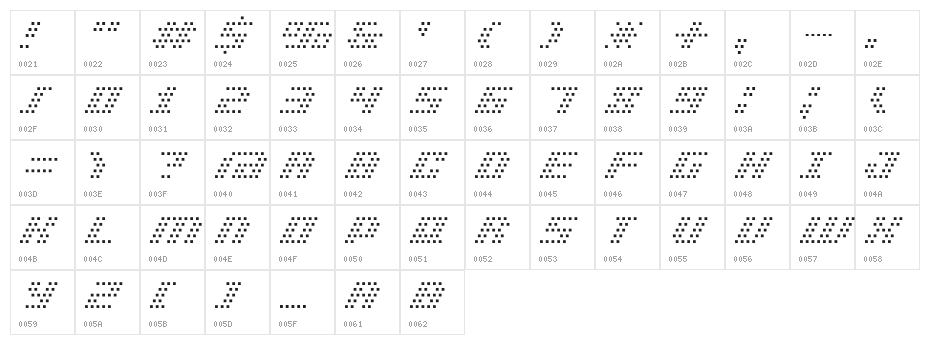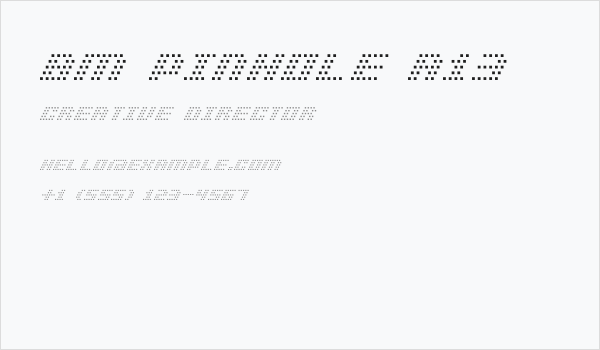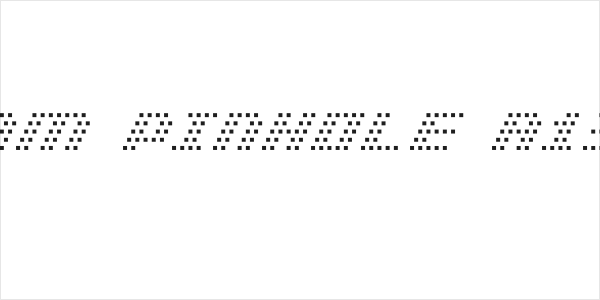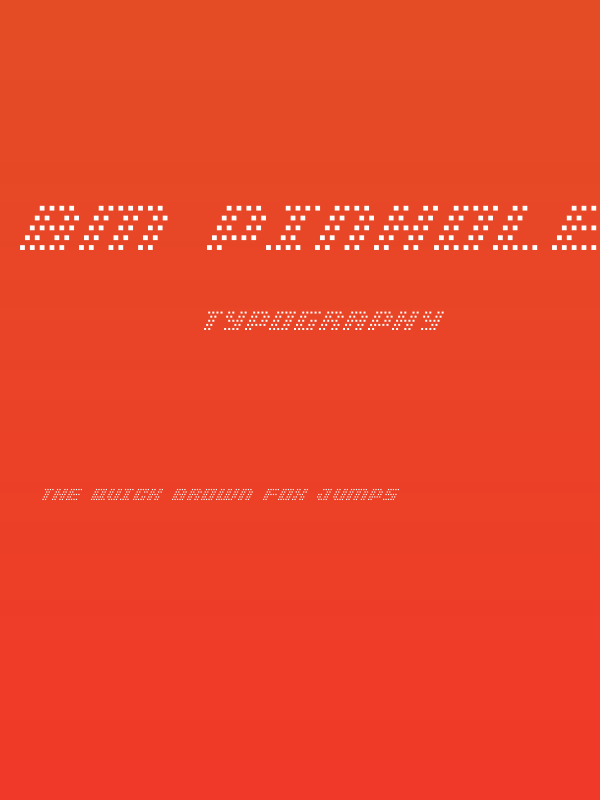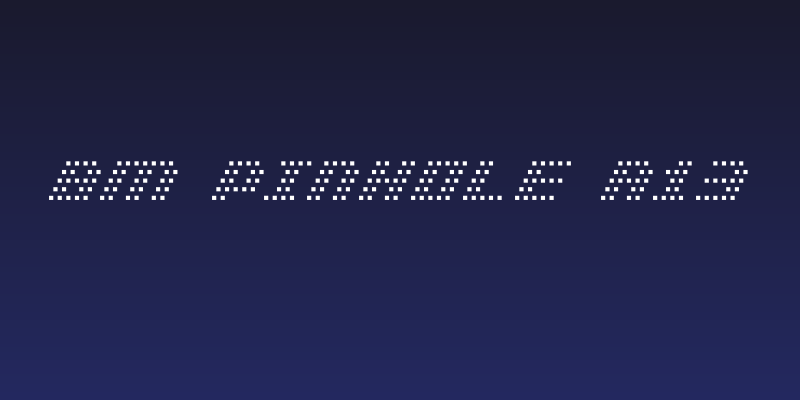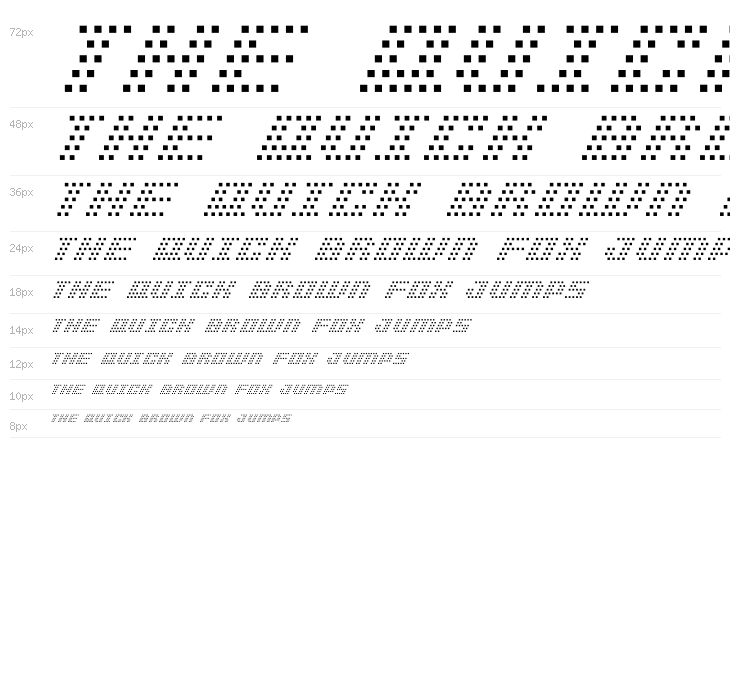
BM pinhole A13 Font
BM pinhole A13 Description
This font features a unique dot matrix design, reminiscent of old digital displays or dot matrix printers. Each character is composed of a grid of small dots, creating a pixelated effect that is both retro and modern. The uppercase and lowercase letters maintain a consistent style, with a slight slant that adds a dynamic feel. Numbers and special characters are also designed in the same dot matrix style, ensuring uniformity across all glyphs. The font's distinct appearance makes it suitable for projects that require a digital or technological aesthetic.
| Overall Style | Retro, Digital |
| Use Case | Logos, Posters, Digital Art |
| Proposed Projects | Ideal for digital-themed designs, retro tech projects, or any creative work that requires a unique, pixelated look. |